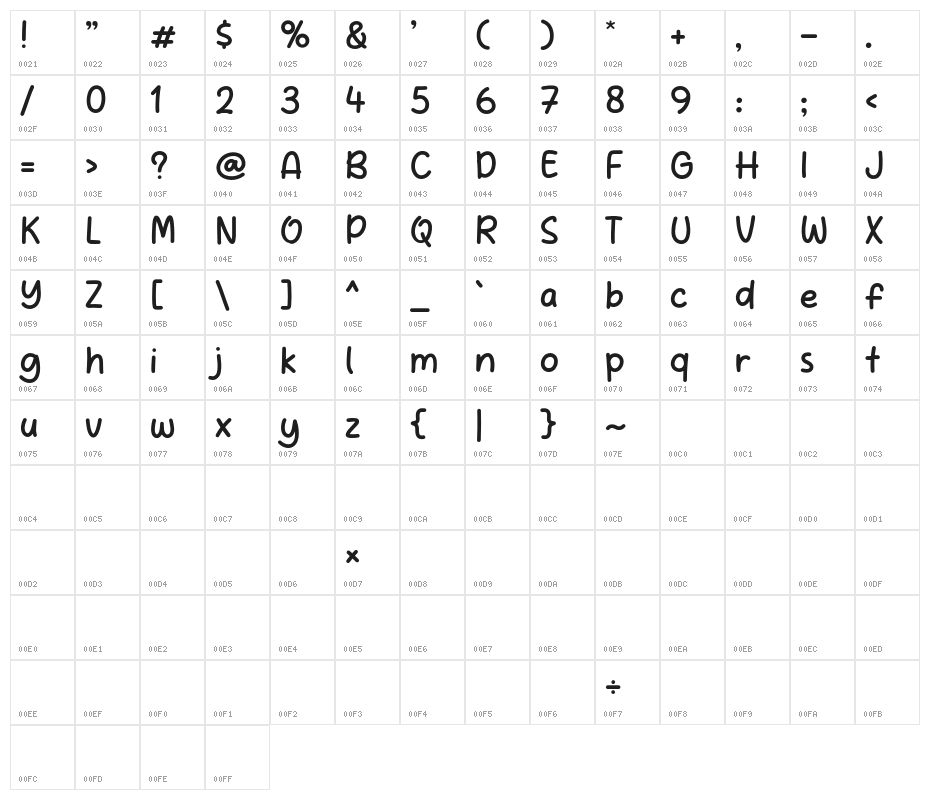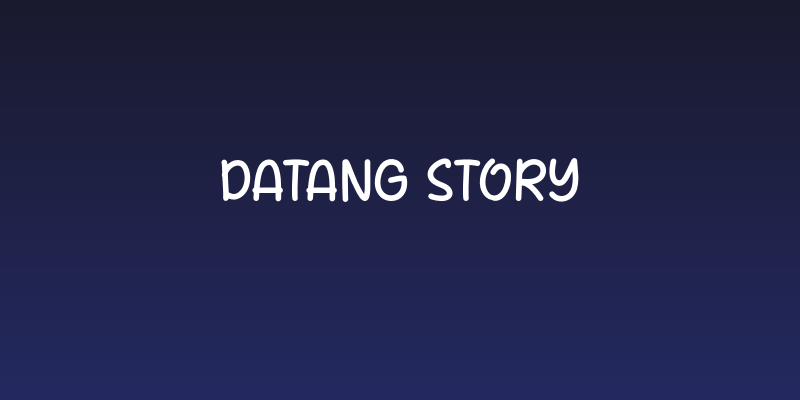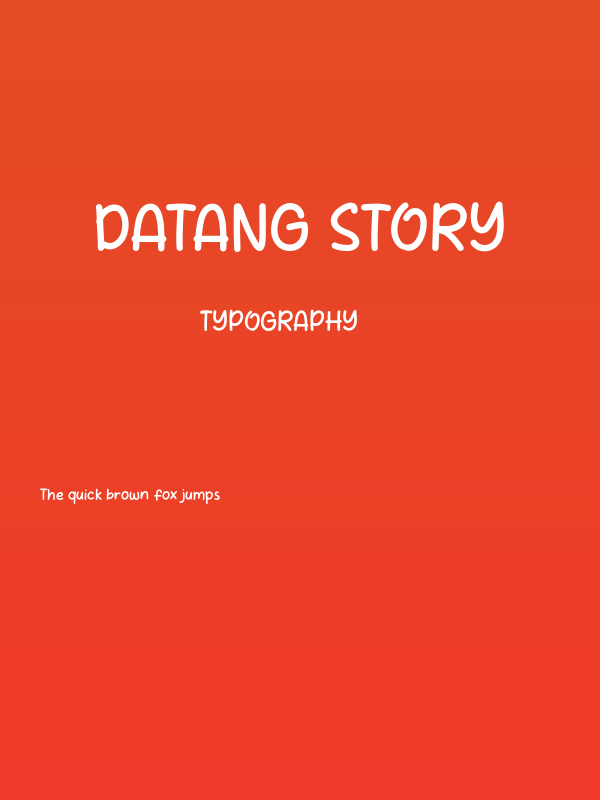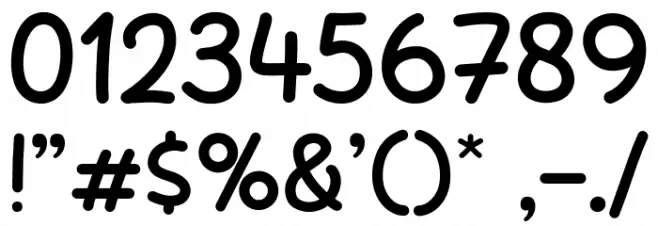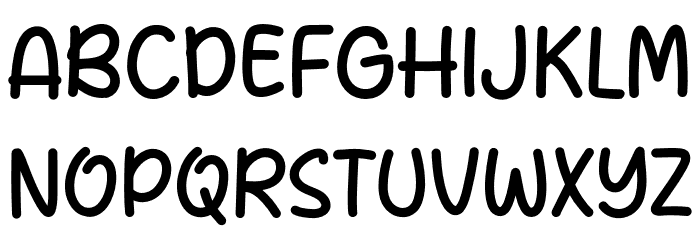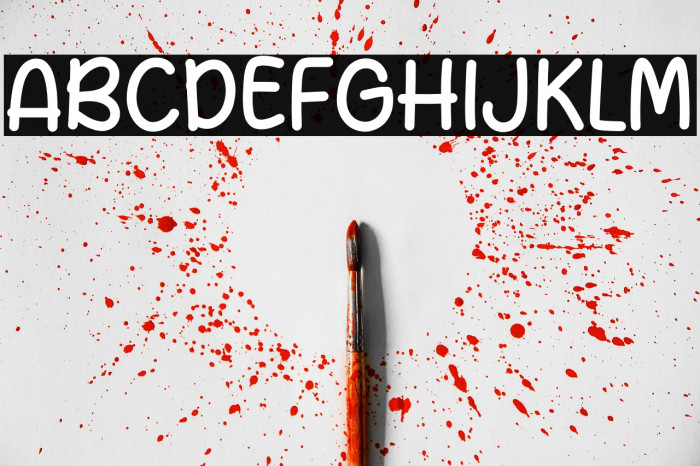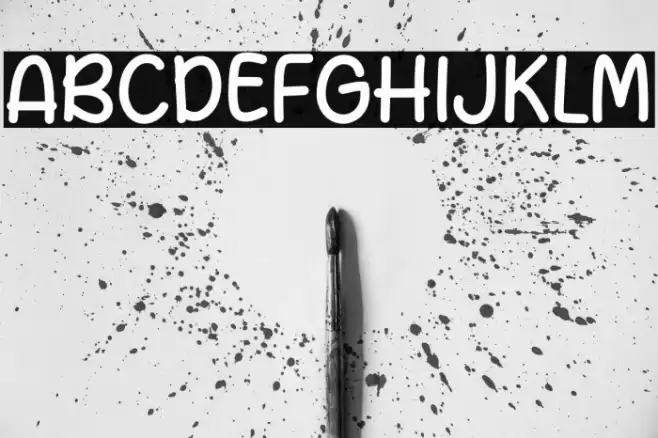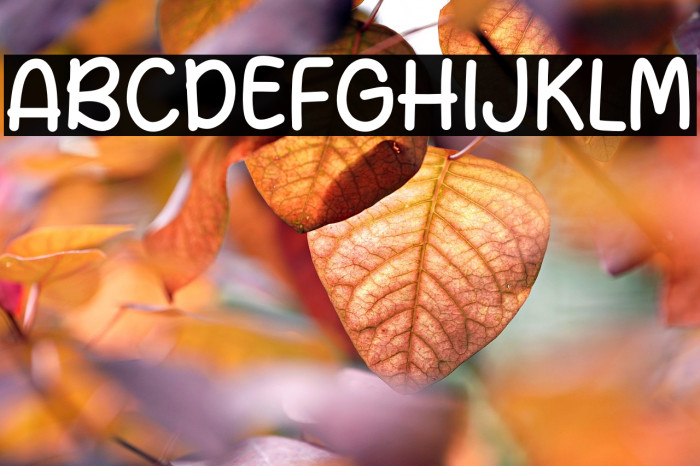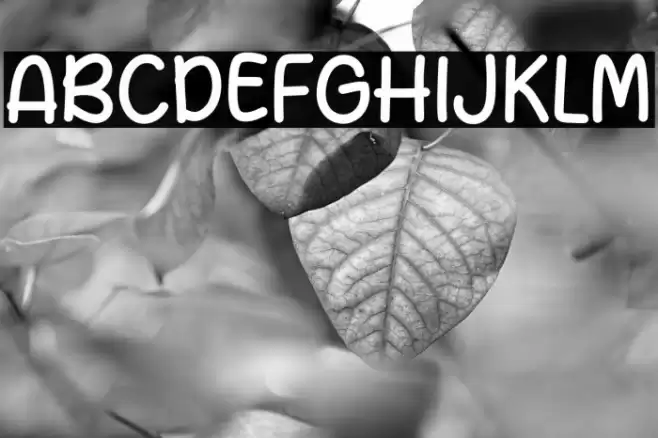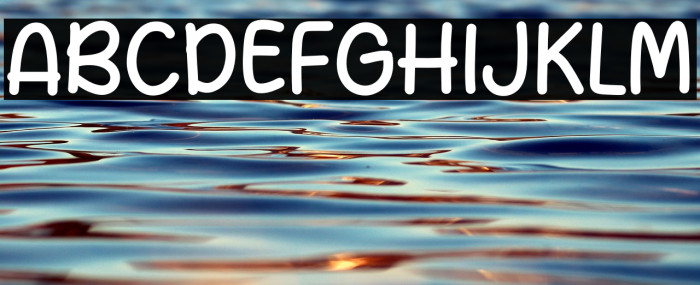
Datang Story Font
| Gesamtstil | Casual, Playful |
| Anwendungsfall | Headlines, Informal text, Branding |
| Vorgeschlagene Projekte | Ideal for children's books, greeting cards, personal blogs, and informal branding. |